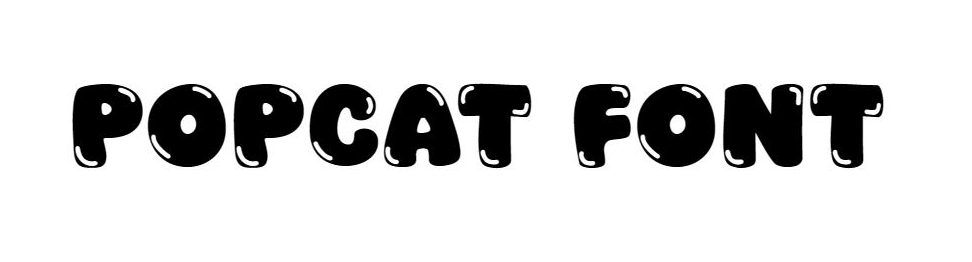
PopCat Font
PopCat Font is a cartoon font designed by MJType (Muhamad Junaid) (2024). It has a cheerful, hand-drawn look that makes people smile before they even read the words. You can download it for free and test it with your own words in the preview above.
With complete upper and lowercase letters and all ten digits, PopCat Font is ready for real wording, not just a single headline. Common punctuation such as &, !, ? and @ is included as well. It also has the accented letters you need for Spanish, French, Portuguese and Italian.
Designers usually reach for fonts like PopCat Font when they're making kids' books, birthday invites and fun YouTube thumbnails. Its lowercase letters are small compared to the capitals, so set it a size or two bigger than usual. Cartoon fonts are great for short, fun lines. If you place it over a busy photo, add a thick outline or a drop shadow so it stays readable.
Does PopCat Font support accented letters?
Yes. PopCat Font includes the accented letters needed for Spanish, French, Portuguese and Italian, so it works for more than just English.